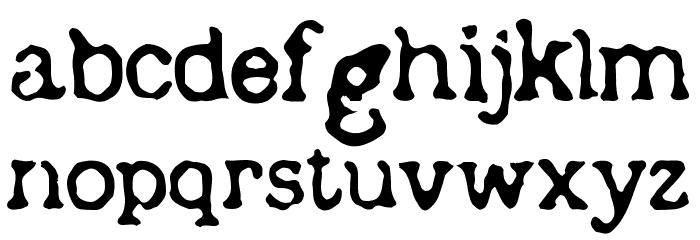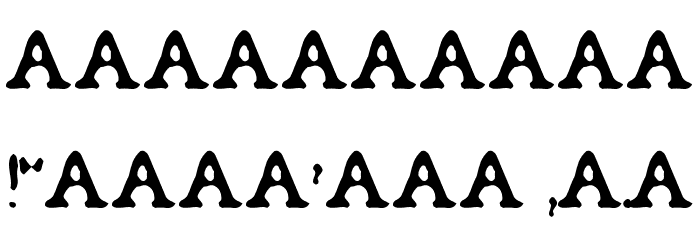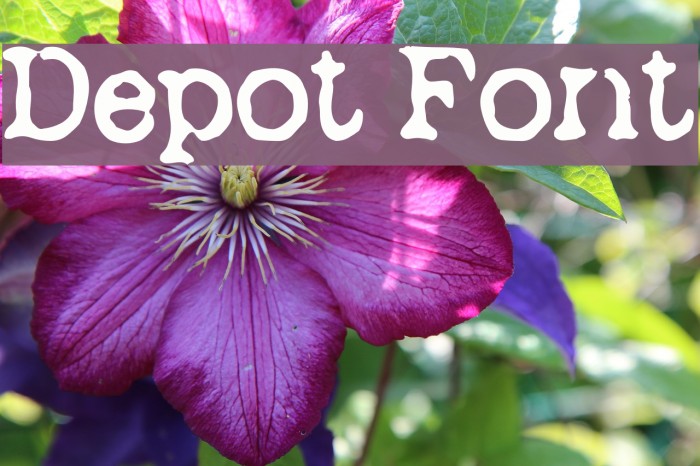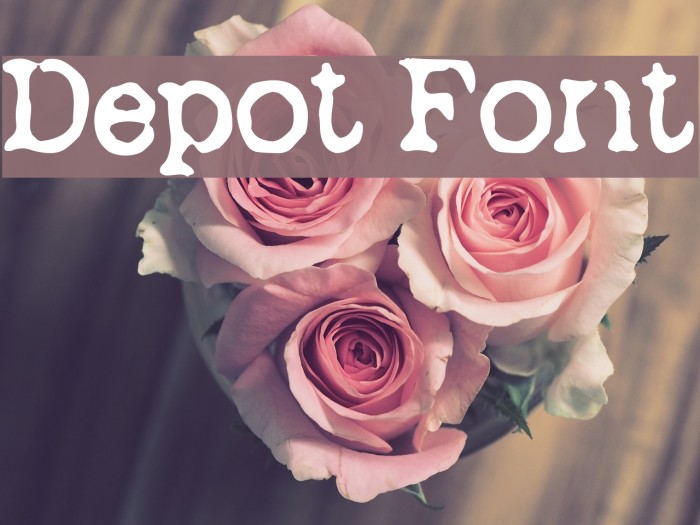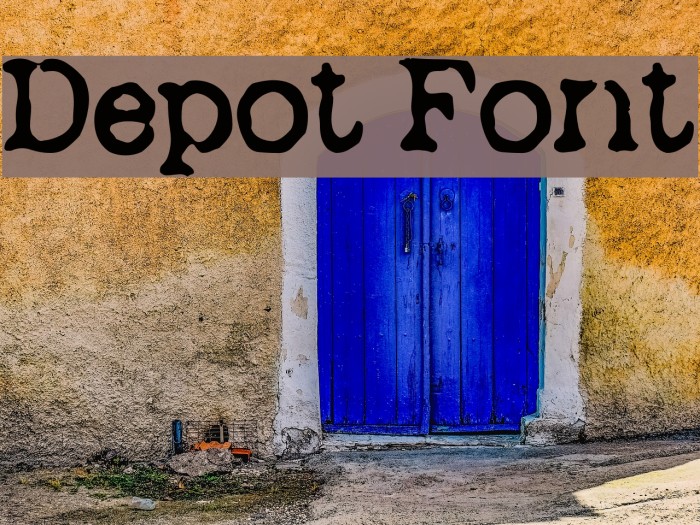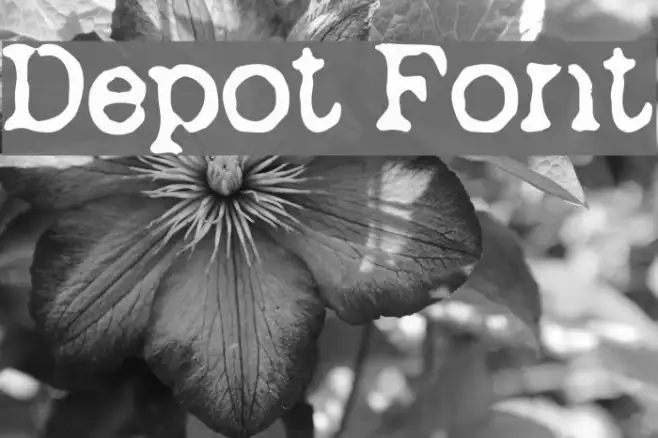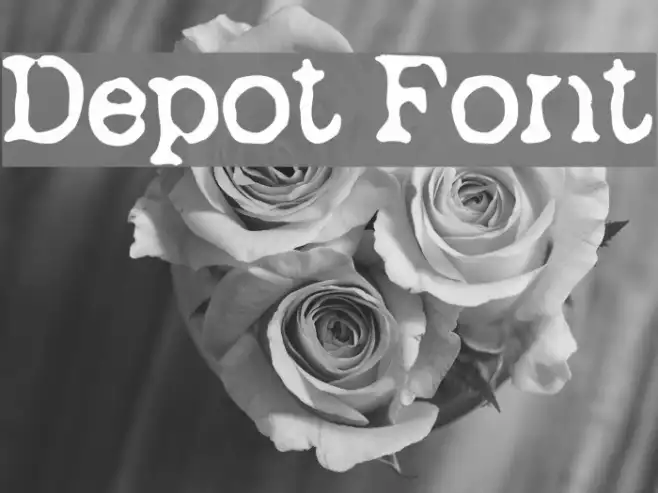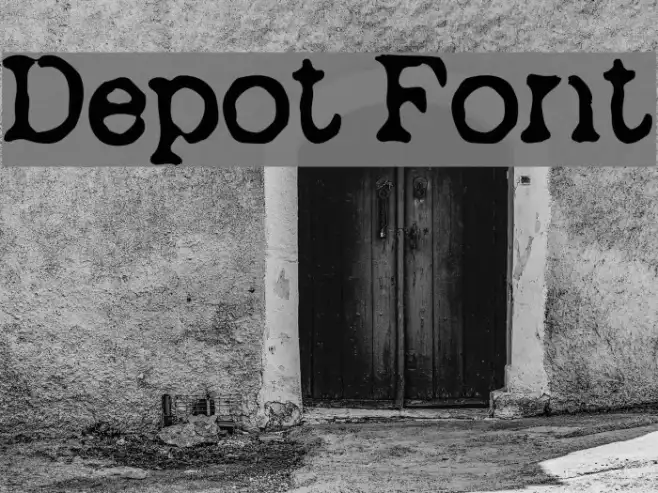
Depot Font
This font features a bold and playful design with a distinctly vintage feel. The characters are thick and rounded, with a slightly irregular outline that adds a hand-drawn, organic touch. The uppercase letters are robust and commanding, while the lowercase letters maintain a consistent style with a touch of whimsy. The numbers and special characters follow the same aesthetic, ensuring a cohesive look across all text. The font's unique style makes it stand out, perfect for projects that require a touch of nostalgia or a bold statement.
A bold, vintage-style font with a playful, hand-drawn appearance.
- Proposed Projects: Ideal for retro-themed posters, playful branding, children's book covers, and creative packaging designs.
- Overall Style: Vintage